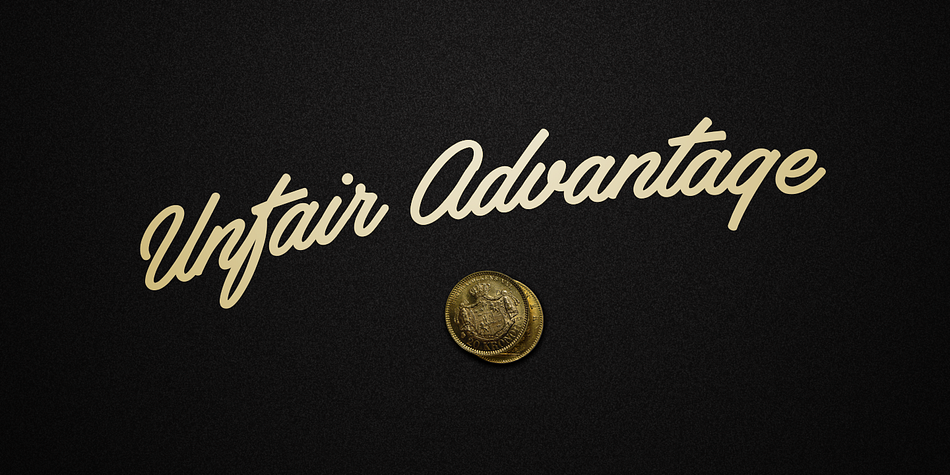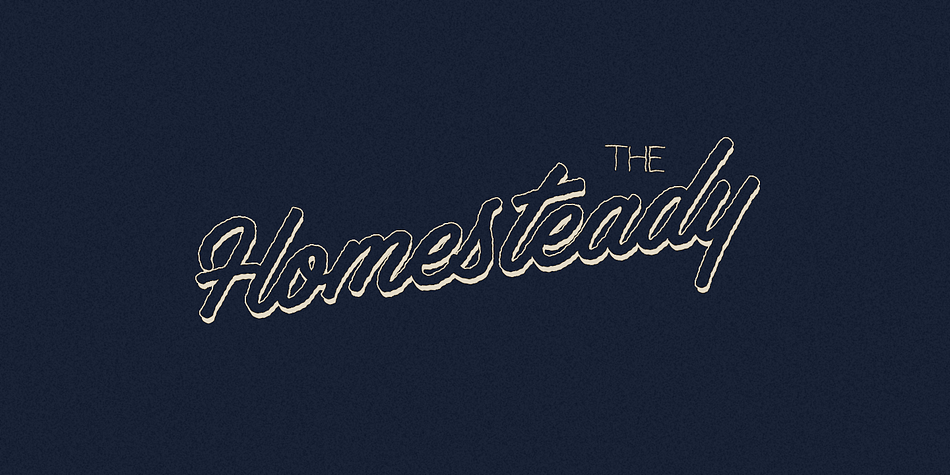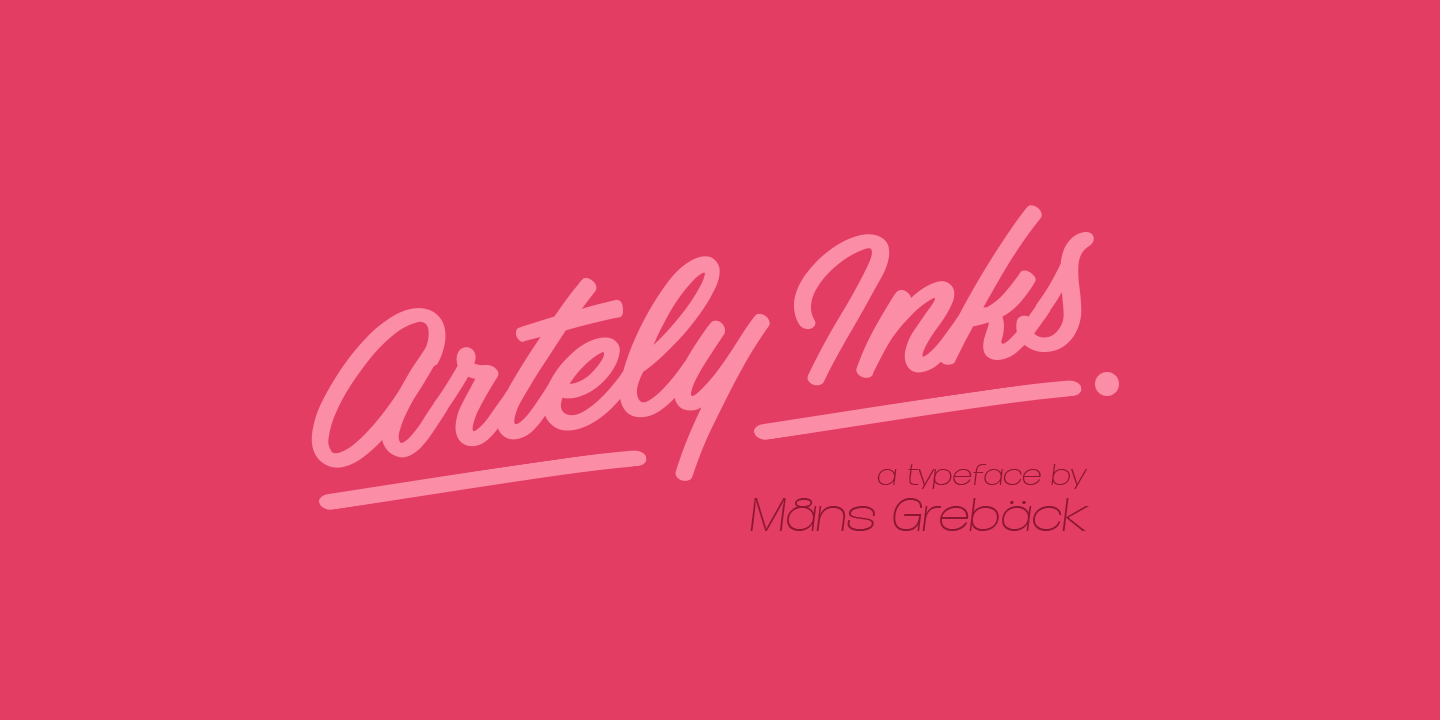
Designed by Måns Grebäck, Artely Inks is a script font published by Aring Typeface AB.
Artely Inks is a calligraphic high-quality font, with a fast and firm style.